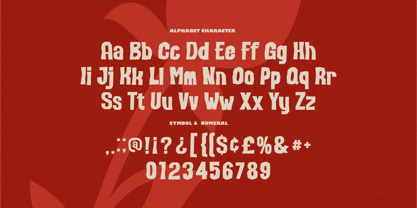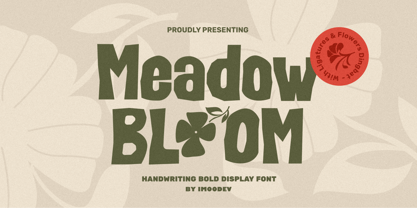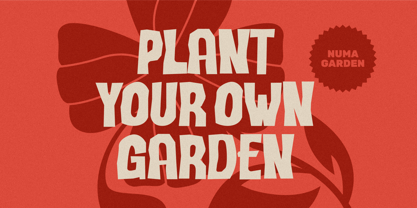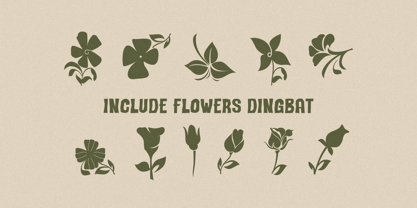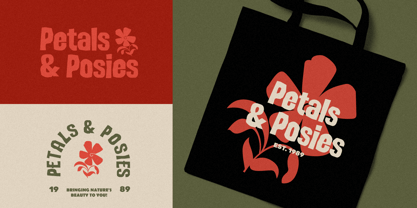
Meadow Bloom
by Imoodev
The Meadow Bloom Font Family was designed by Aulia Savira Putri and published by Imoodev. Meadow Bloom contains 1 styles. More about this family
Introducing "Meadow Bloom," a bold, hand-drawn display font that exudes a natural and organic charm. Its letterforms feature slightly irregular shapes, giving it a whimsical, quirky, and playful aesthetic. Moreover, the design incorporates floral dingbats and ligatures, further enhancing its nature-inspired theme. This font is particularly well-suited for eco-conscious branding, tote bags, packaging, posters, sweet designs, product packaging, merchandise, logos, apparel, cards, posters, social media posts, stickers and more!
Designers: Aulia Savira Putri
Foundry: Imoodev